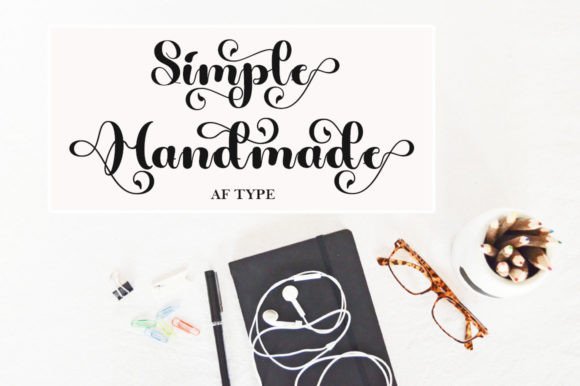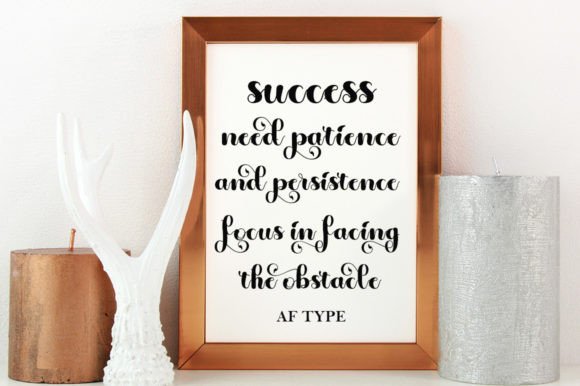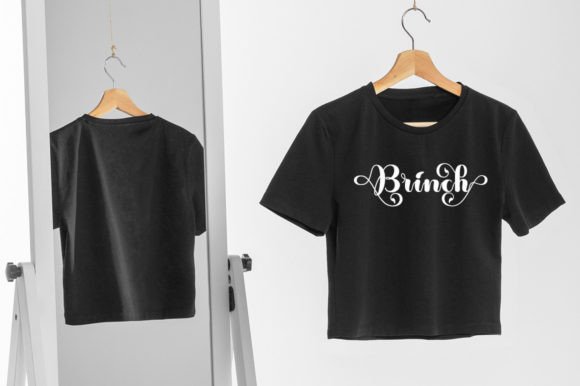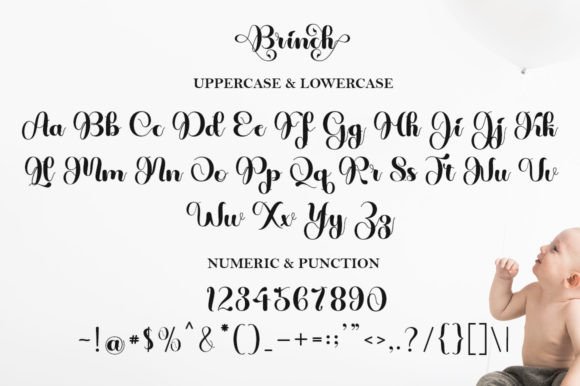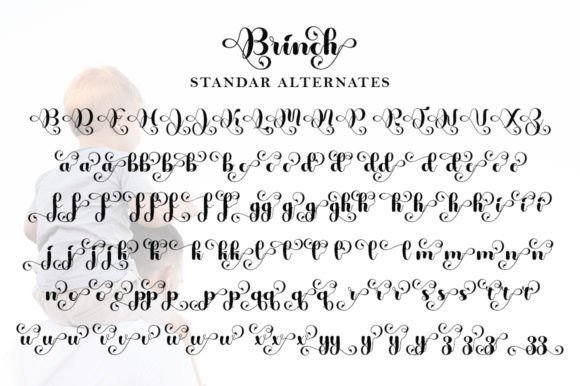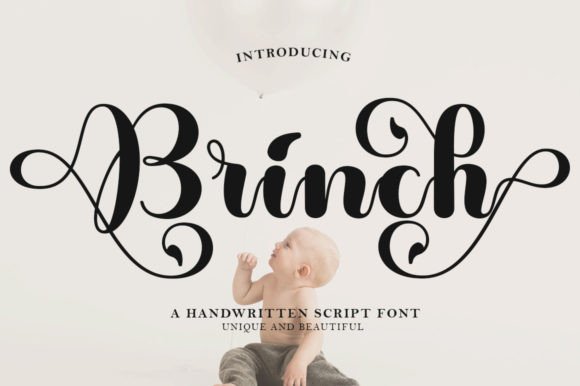
The Brinch Font: A Stylish Handwritten Delight for Creative Projects
I’ll never forget the time I was working on a wedding invitation project, and my client asked for a font that was both elegant and playful. I scoured the internet, tried countless fonts, but nothing seemed quite right. That was until I stumbled upon the Brinch font. It was love at first sight! 💕 The perfect blend of style and whimsy, Brinch has since become a go-to font for many of my design projects.
An Honest Review of Brinch Font
What I Love About Brinch Font
- ✨ Elegant yet playful handwritten style
- ✅ Perfect for a variety of creative projects, from wall displays to social media logos
- 💫 Beautifully crafted with attention to detail
- 📚 Extensive character set, including glyphs and stylistic alternates
While Brinch font is an excellent choice for many projects, there are a few things to keep in mind:
- ⚠️ Limited use of uppercase letters; best used sparingly for emphasis
- 🤔 Some users may find the font a bit too ornate for very simple designs
One of the standout features of Brinch font is its extensive character set, including OpenType features and glyphs. These allow you to add an extra layer of creativity to your designs. For example, you can use:
- Stylistic alternates to create a more playful or elegant feel
- Glyphs to add decorative elements, such as swashes or flourishes
- Ligatures to create a more natural, handwritten look
The Story Behind Brinch Font
Brinch font was designed with the intention of creating a beautiful, elegant handwritten font that would bring a touch of personality to any design project. The designer, inspired by classic calligraphy and modern typography, crafted Brinch to be both stylish and versatile. Whether you’re working on a wedding invitation, social media logo, or product packaging, Brinch font is the perfect choice.
Q: What type of projects is Brinch font best suited for?
A: Brinch font is perfect for a variety of creative projects, including wall displays, wedding invitations, social media logos, advertising, product packaging, and more.
Q: Is Brinch font easy to read?
A: Yes, Brinch font is designed to be elegant and easy to read, making it perfect for body text and headlines.